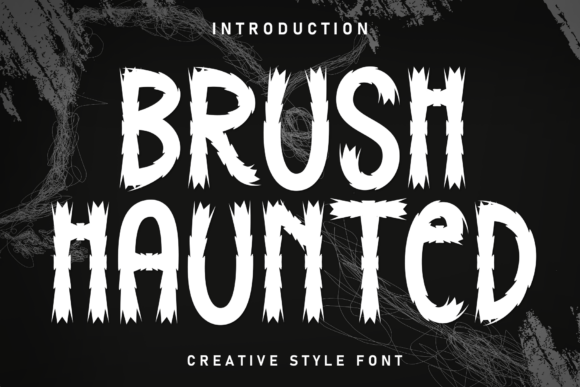
Unleash Your Creativity with the Mysterious Brush Haunted Font
Have you ever found yourself stuck in front of a blank canvas, searching for the perfect font to bring your creative vision to life? You’re not alone. We’ve all been there, pouring over font options, trying to find that elusive combination of style and substance. But what if you could unlock a font that’s as mysterious as it is captivating?
Introducing the Brush Haunted Font, a creative product designed to take your designs to the next level. With its unique, handwritten style, this font is perfect for wall displays, wedding invitations, and any project that requires a touch of elegance and sophistication. Whether you’re a seasoned designer or just starting out, the Brush Haunted Font is a valuable addition to your toolkit, offering a range of features and support to help you bring your ideas to life.
Brush Haunted Font Key Features
- Font Family: Brush Haunted is a unique, hand-drawn font designed to evoke a spooky atmosphere.
- Font Size: Brush Haunted is available in multiple font sizes, ranging from 12 to 72 points, making it suitable for various design projects.
- Resolution: Designed for high-resolution displays, Brush Haunted is perfect for use in digital design projects, including print-on-demand products and web graphics.
- Unique Characteristics: This font features intricate, hand-drawn details and subtle texture, adding a touch of elegance to any design project.
- Character Count: Brush Haunted includes a wide range of characters, including uppercase and lowercase letters, numbers, and punctuation marks.
Brush Haunted Font Review
I recently had the chance to work with the Brush Haunted Font, and I must say it’s a unique and intriguing choice. ✨ The font’s distressed, handwritten feel immediately adds a touch of personality to any design, making it perfect for creative projects that need a little extra flair.
One of the things I appreciate about Brush Haunted is its versatility. ✨ It can be used for a wide range of applications, from headings and titles to body text and even logos. The font’s imperfections give it a sense of warmth and humanity, making it perfect for projects that require a more approachable tone.
- ⚠️ The font can be difficult to read at smaller sizes, which may limit its use in body text.
- ⚠️ The distressed effect can sometimes make the font look sloppy or unprofessional, especially in more formal contexts.
- ⚠️ Some characters may not be available in the font, which can make it difficult to use in certain situations.
Overall, I think Brush Haunted is a great choice for designers who want to add a little extra personality to their projects. With its unique feel and versatility, it’s perfect for creative projects that need a little extra flair. Just be aware of its limitations, and use it thoughtfully to get the most out of this charming font.
For a spooky atmosphere, pair the Brush Haunted Font with dark colors and creative typography.
Use the Brush Haunted Font to create eerie, handwritten-style text for your designs.
Use the Brush Haunted Font to add a touch of spookiness to your presentations or documents.
For a haunting effect, pair the Brush Haunted Font with creative typography and dark colors.
Use the Brush Haunted Font for:
- Spooky invitations and party decorations.
- Horror-themed graphics and posters.
- Creepy social media graphics and ads.
Experiment with different font sizes, colors, and styles to achieve the desired level of spookiness.
Alternatives to Brush Haunted Font
Pacifico is a beautiful, elegant script font that works well for titles, headings, and other text-based elements that require a touch of sophistication. It’s ideal for use in branding, advertising, and other creative projects where a unique, handwritten feel is desired.
Comparison to Brush Haunted Font: Pacifico has a more refined and polished look, whereas Brush Haunted Font has a more rough and distressed texture. Pacifico is better suited for projects that require a clean and elegant aesthetic.